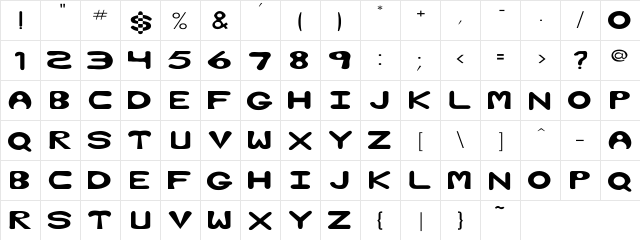
Bubble Wide Regular
Design Context for Bubble Wide Typeface
Bubble Wide trades formality for fun, with bouncy, characterful letterforms that bring warmth and energy to any project.
Font Pairing: Pairs well with a rounded or humanist sans for body copy, maintaining the friendly tone without relying on Bubble Wide to carry extended reading.
Pro Tip: Use Bubble Wide at larger display sizes where its expressive character can land. Pair with a clean, simple sans for body copy to maintain readability.